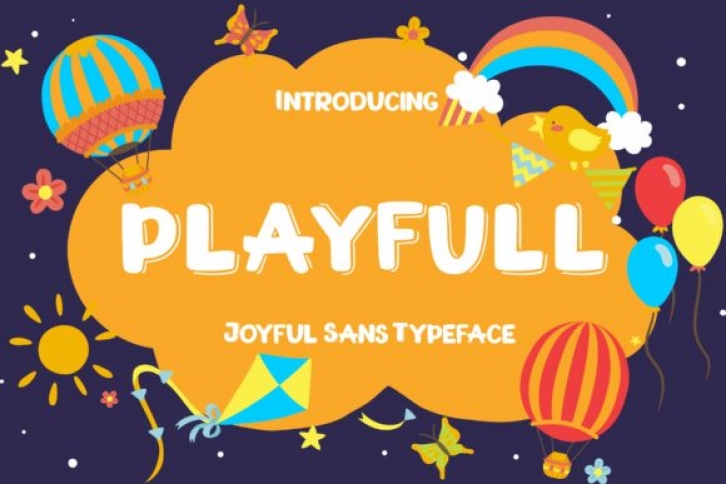
Playfull is a fun, whimsical and kids-friendly display font with a unique feel. It’s the perfect font for adding a cheerful feel to any comic project!